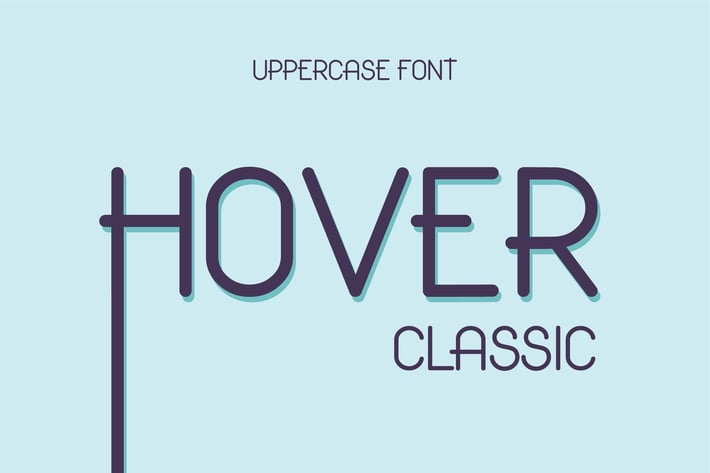
Hover Classic Uppercase Font
Hover Classic is Uppercase display font. It will create unique character to Your new project. It has clean and elegant look that will attract attention. Hover is great for creating logos, identities, posters and packaging designs.